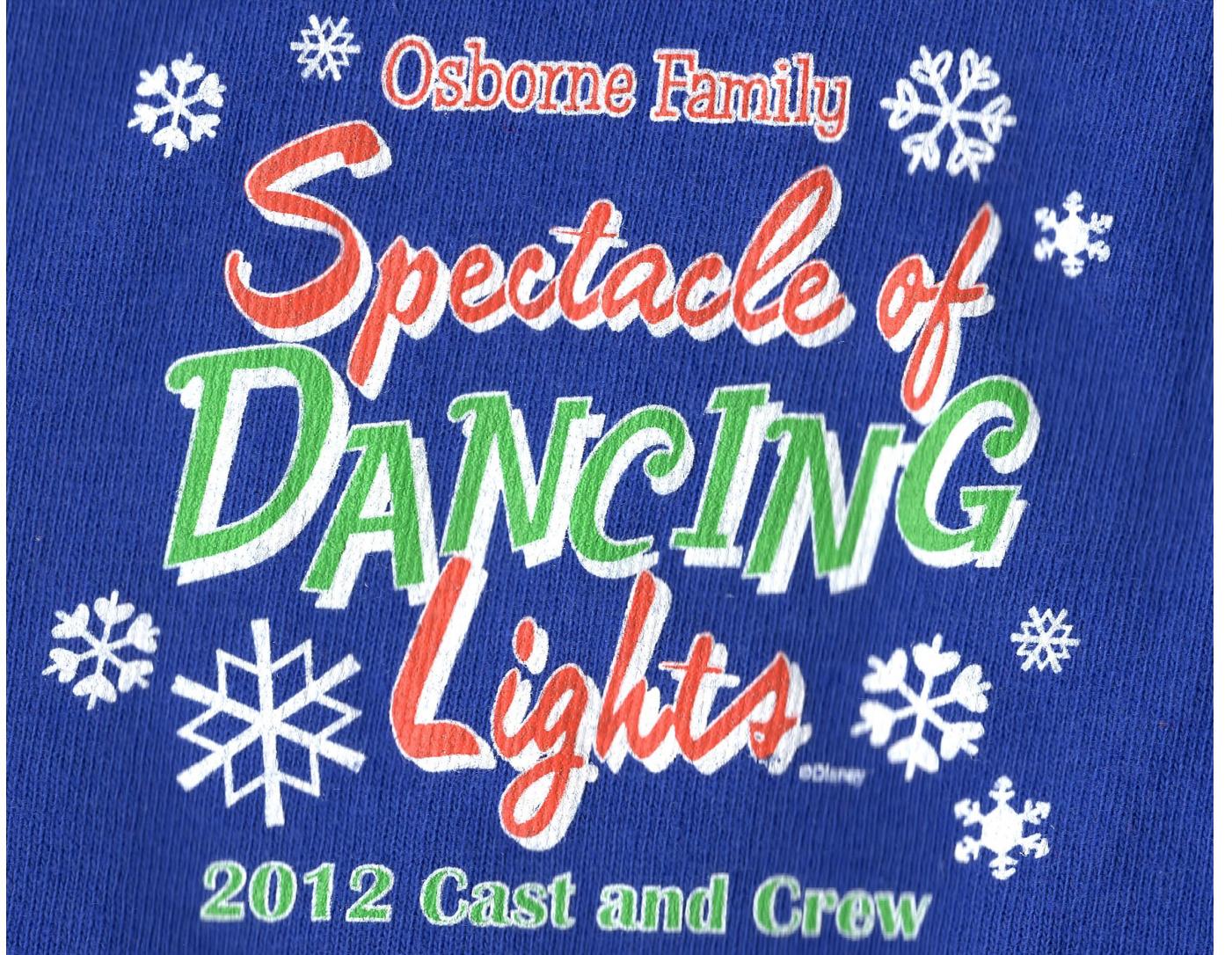
Looking for the font in this logo from the former Osborne Lights at Walt Disney World
Hello, I have been searching seemingly forever for the various fonts in this logo. I know that the text "Dancing" is Baileywick Festive and "2012 Cast and Crew" is Brittanic Bold. I'm not sure on the "Osborne Family" font and the "Spectacle of Lights" font. The "Spectacle of Lights" looks similar to Brush Script but many characters don't match exactly. Any Ideas? This is a cast T-Shirt scan from a Christmas Light display that used to be held at Walt Disney World until 2015.
Osborne Family appears to be CAC One Seventy Regular, a typeface created by the American Greetings Corporation.
Spectacle of Lights looks like Filmotype Kipling, though the crossbars on the |t|s in your sample have been thinned out. Only digital version is by the now defunct OPTI-Castcraft Company.
Wow! Thank you very much for that! I cant tell you how long I was searching for them. CAC One Seventy Regular is a perfect match and like you said it seems the T needs thinned out in Filmotype Kipling. Also it appears the tail of the lowercase p and its angle don't match up- they must have modified it somehow.